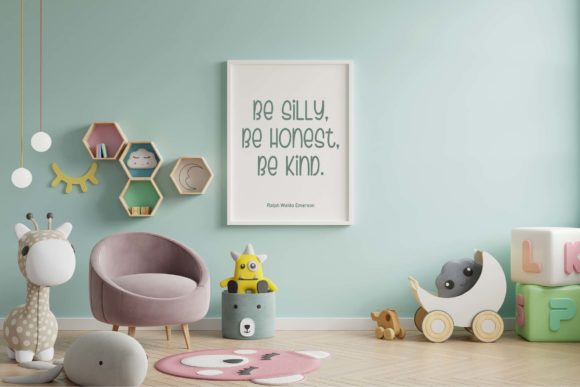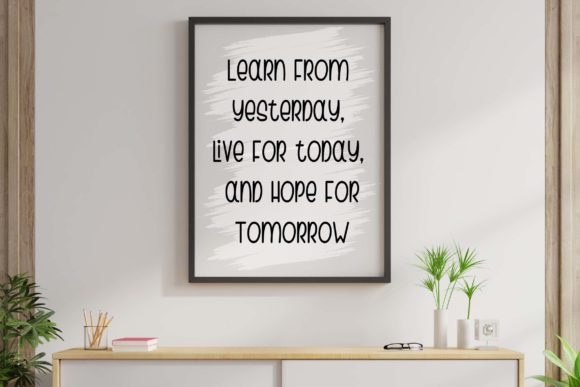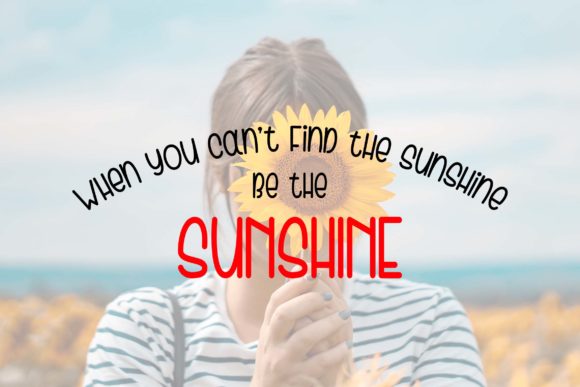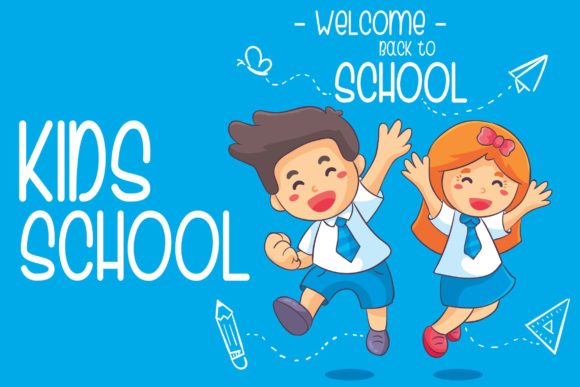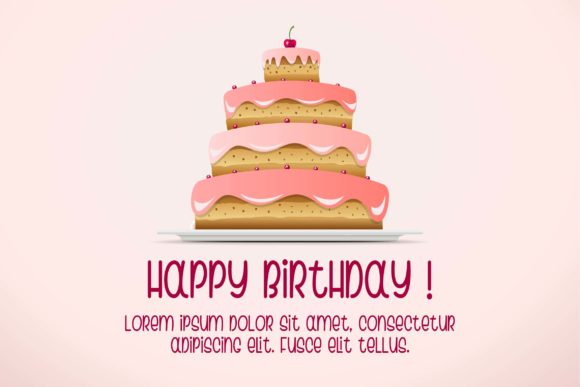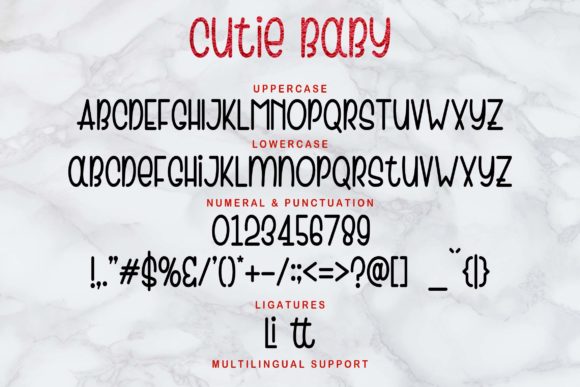
Discover the Sweet Charm of Cutie Baby Font
Have you ever sat at your desk, staring at a blank page, and suddenly, an idea strikes? Maybe it’s a wedding invitation, a birthday card, or a social media post that needs a little extra oomph. Whatever it is, you know exactly what you need: a font that’s as sweet as it is stylish.
Enter Cutie Baby Font – a charming display font that’s perfect for adding a touch of whimsy to any design. With its flowing lines and delicate curves, this font is sure to capture hearts and inspire creativity. Whether you’re a seasoned designer or a DIY enthusiast, Cutie Baby Font is a valuable addition to your toolkit – and with its incredibly versatile style, the possibilities are endless!
Cutie Baby Font Key Features
- Font Style: A cute and playful sans-serif font, ideal for children’s products, nursery decorations, and family-related themes.
- Character Set: Includes a wide range of characters, including uppercase and lowercase letters, numbers, punctuation marks, and special characters.
- Unique Characteristics: Features rounded edges, smooth curves, and a friendly tone, making it perfect for creating a warm and inviting atmosphere in designs.
Designer Review: Cutie Baby Font
Overall, I have mixed feelings about the Cutie Baby Font. Let’s dive in and explore what works well and what doesn’t.
- Cute and playful vibe: The font is perfect for designs that need a touch of whimsy and charm.
- Legibility: Despite its playful nature, the font is still quite readable, especially at larger font sizes.
- Customization options: The font offers a range of customization options, including font weights, sizes, and line heights.
- Not suitable for formal designs: The font’s playful vibe makes it less suitable for formal or professional designs.
- Limited language support: The font may not support all languages or character sets, which can be a limitation for global designs.
- Overuse: The font’s cute and playful nature can make it feel overused or clichéd if not used thoughtfully.
Overall, I think the Cutie Baby Font is a fun and creative option for designers who want to add a playful touch to their designs. However, it’s essential to use it thoughtfully and consider the context and audience before choosing this font.
For optimal results, use Cutie Baby Font in conjunction with bold, italic, or underlined styles to create a visually appealing design. Additionally, experiment with different font sizes to create hierarchy and emphasis in your design.
Cutie Baby Font is ideal for designs targeting young audiences, such as children’s products, nursery decor, or baby-related services. It can also be used in creative projects, like invitations, greeting cards, or party decorations.